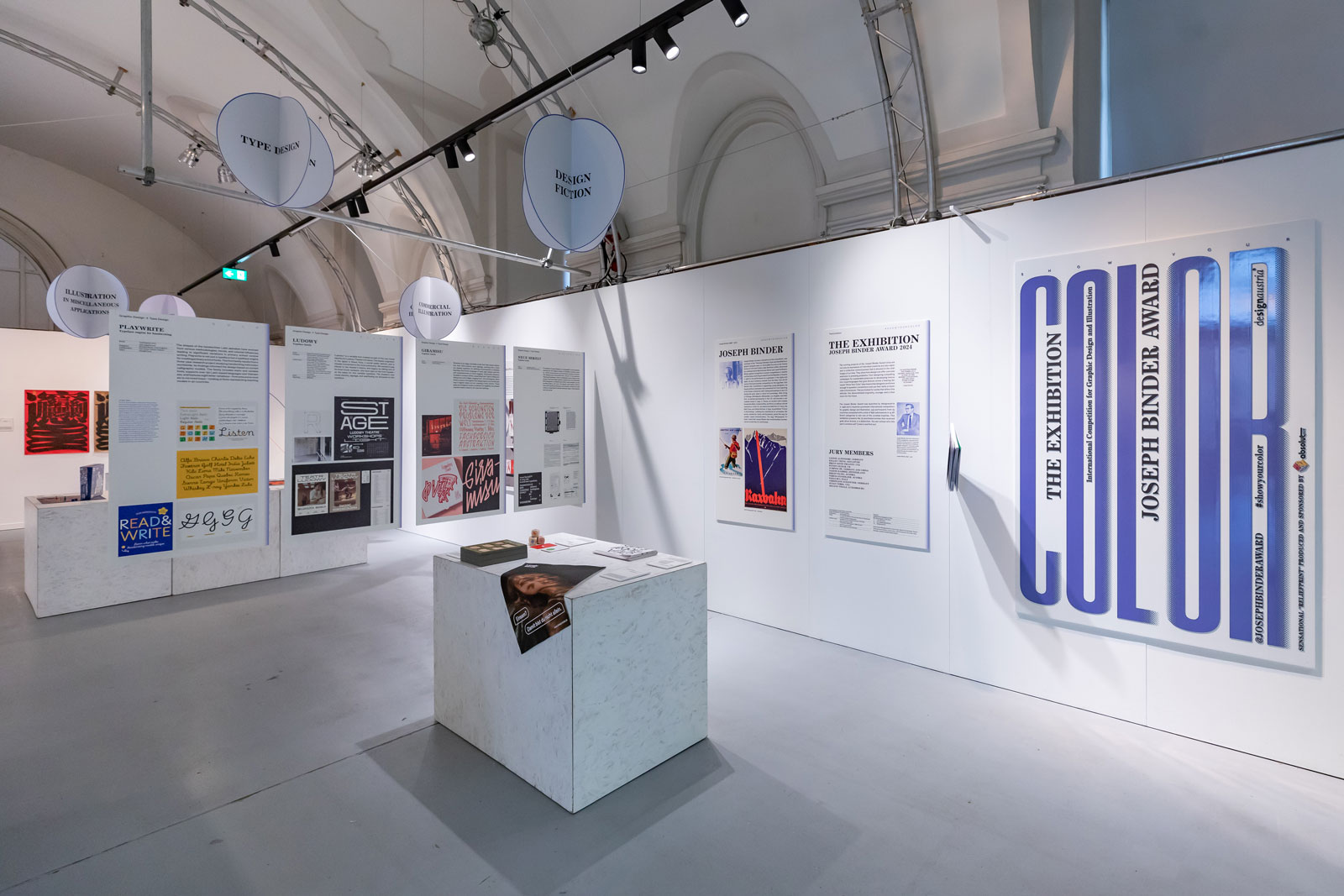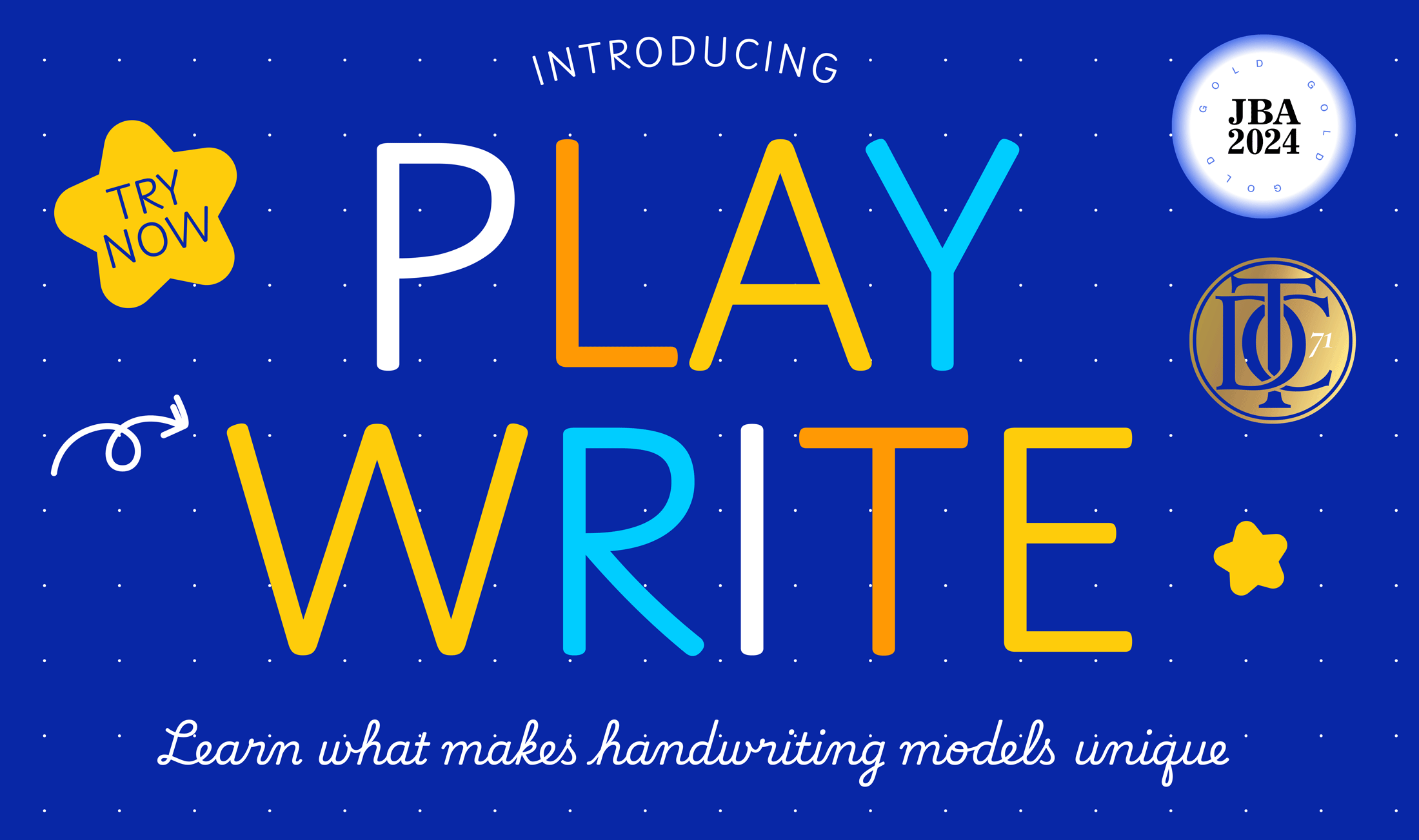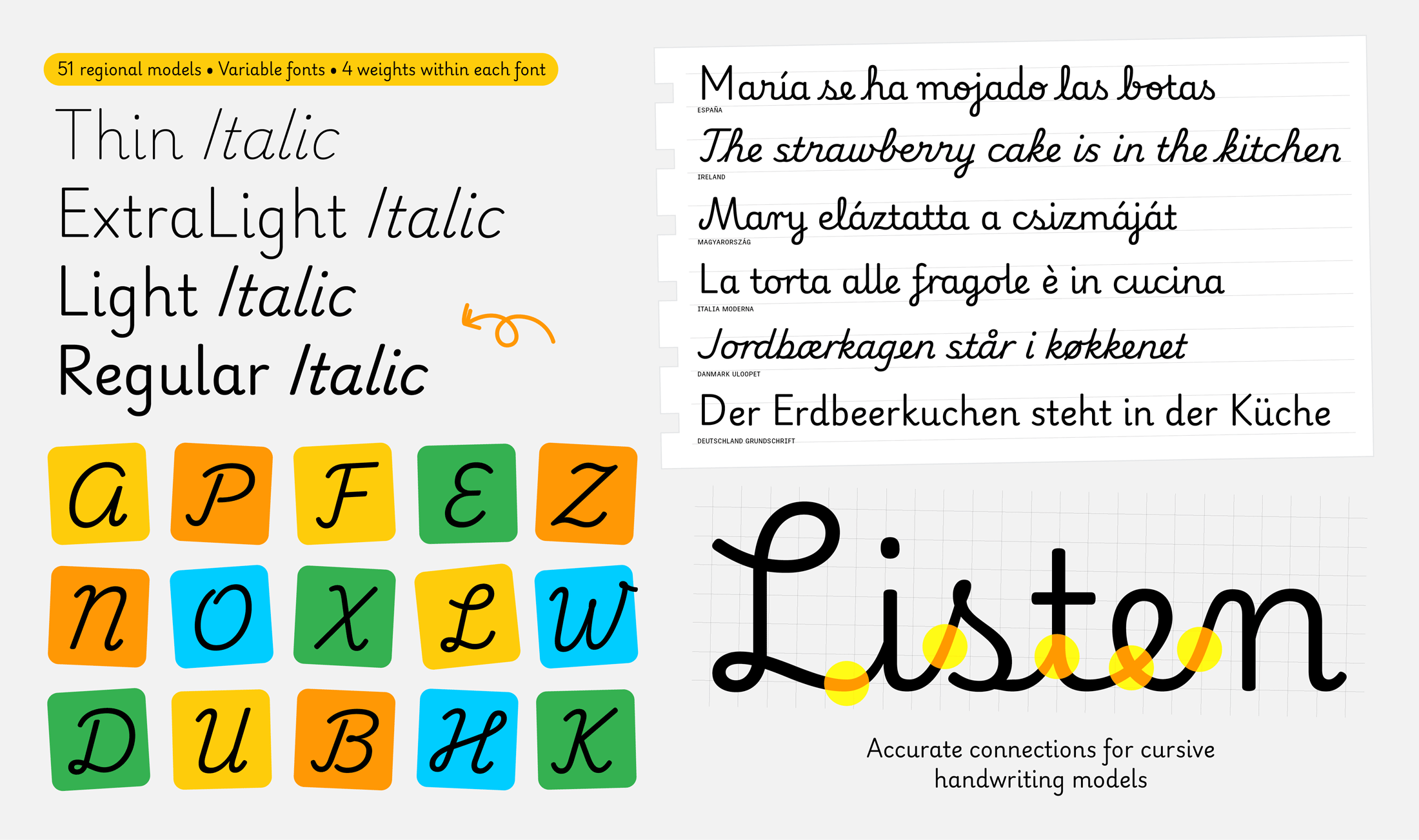
Playwrite wins again: Binder & TDC!
We are delighted to announce that Playwrite has received the maximum distinction at the Joseph Binder Award in the category of type design, a competition that happens every two years. Tom Grace, senior designer at TypeTogether, joined the symposium and award ceremony.
The jury had this to say about the Playwrite font family: “Playwrite is a remarkable endeavour that unites diverse languages and cultures through innovative typographic solutions. This project stands out not only for its aesthetic appeal but also for its conceptual depth, as it seeks to create a versatile tool adaptable across various linguistic landscapes. [...] Innovative and forward-thinking. Moreover, the project thoughtfully explores how typography can be interpreted across different regions, showcasing a keen understanding of cultural nuances.”
And as of just a few days ago, Playwrite has also been selected as the winner of the coveted 2025 Type Directors Club award.
Rather than just a simple font family, Playwrite is a typeface engine that allows the creation of primary school fonts. It includes static and variable fonts, support for over 150 Latin-based languages, Vietnamese, and stylistic sets with a combination of eight letter variations for each glyph. Download the entire family for free to use in handwriting lessons, or get to know more about Playwrite and its amazing capabilities.